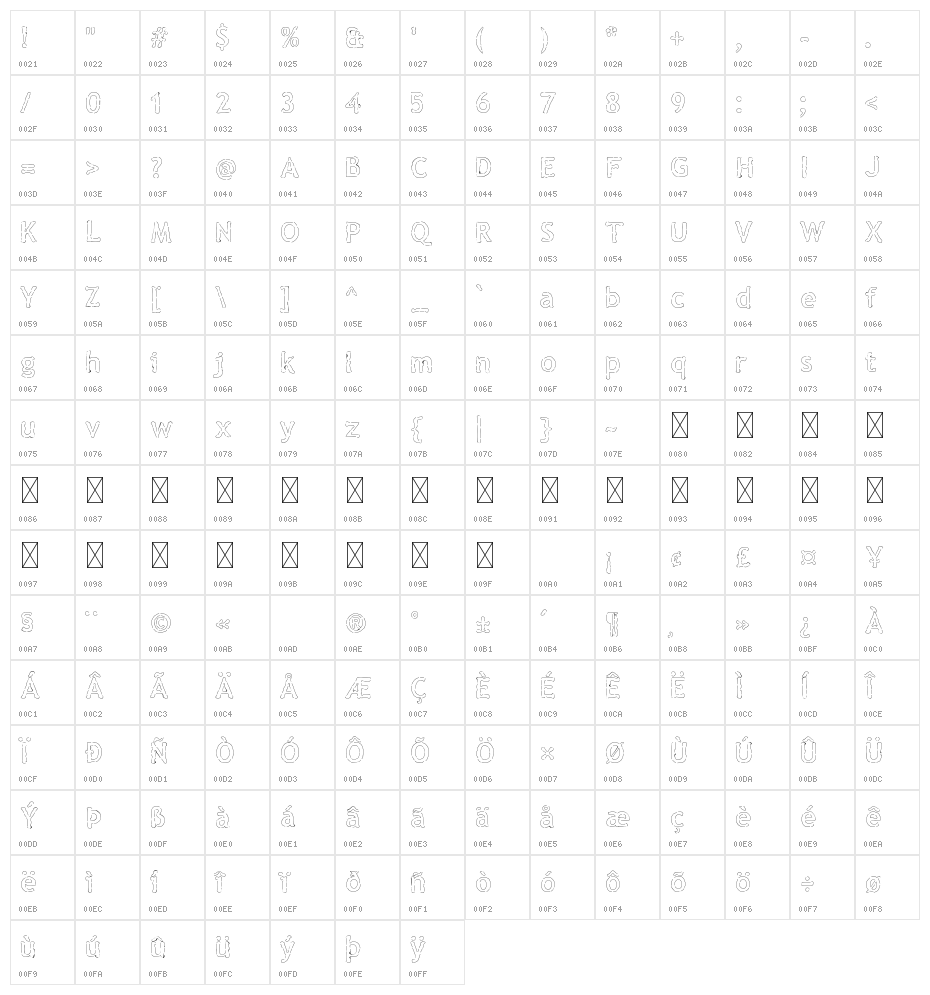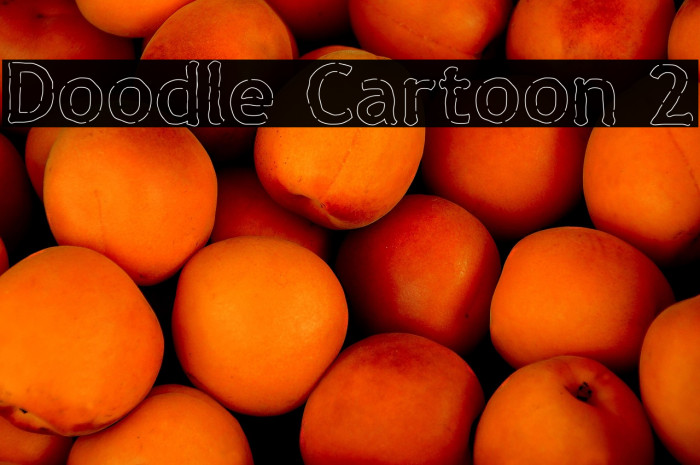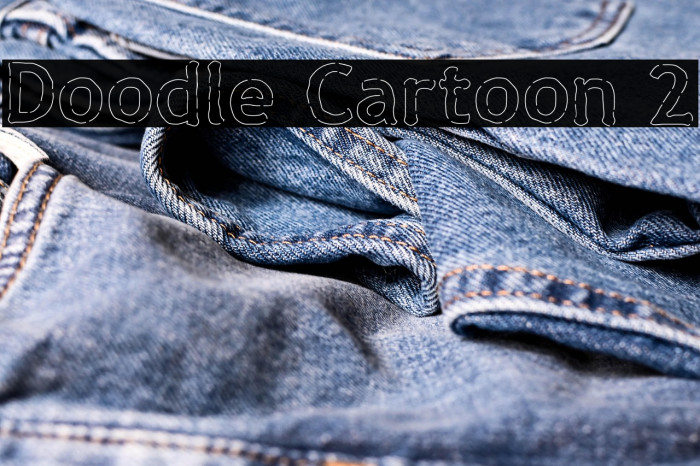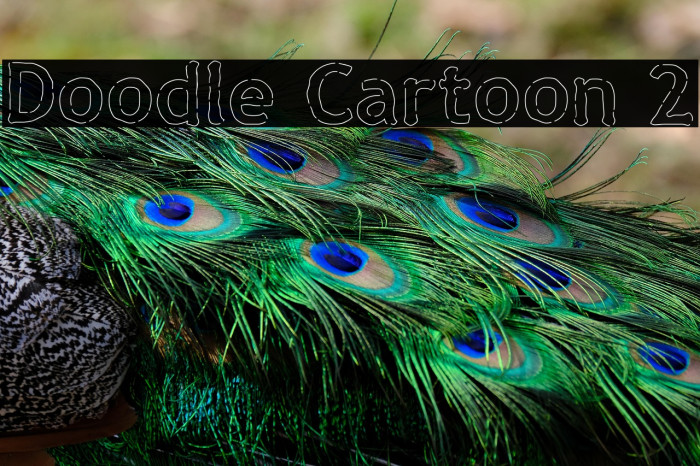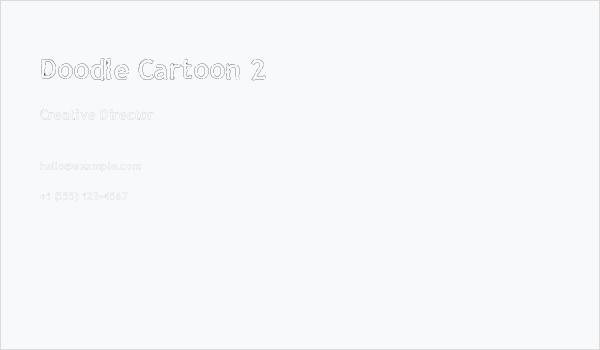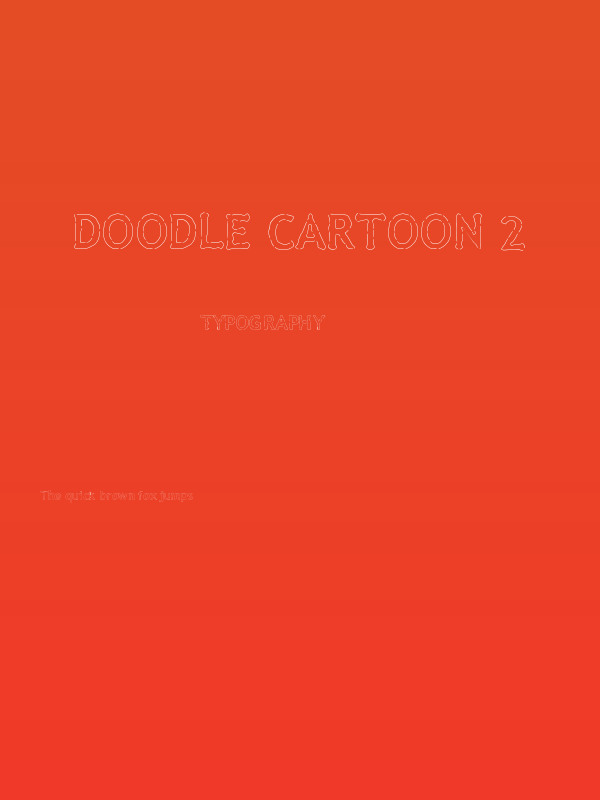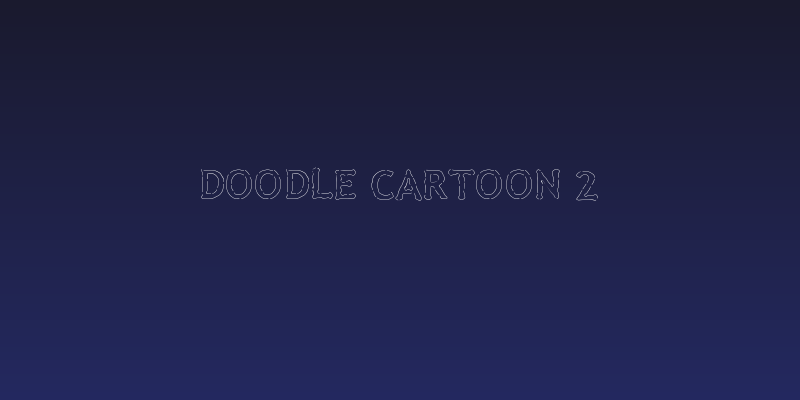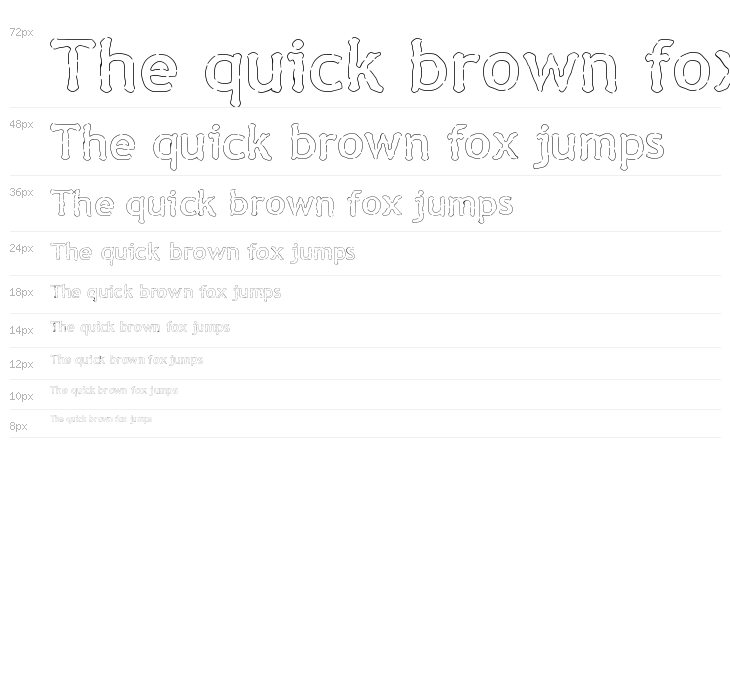
Doodle Cartoon 2 Font
Doodle Cartoon 2 Description
This playful and whimsical font features a hand-drawn, doodle-like style that gives it a cartoonish and informal appearance. The characters are outlined with a slightly uneven stroke, adding to the casual and fun aesthetic. Each letter and number has a unique, quirky shape that enhances its playful nature. The font maintains a consistent thickness throughout, with no significant contrast in stroke width. Its informal style makes it ideal for projects that require a touch of humor and creativity.
| Overall Style | Whimsical, Playful |
| Proposed Projects | Ideal for children's books, comic strips, playful branding, and casual invitations. |